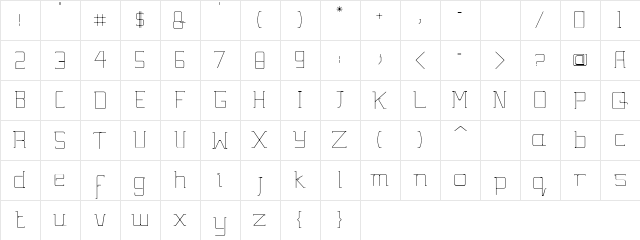
Gutsy Regular
| Foundry | Taha Ahmad Makhdoomi |
| Designer | Taha Ahmad Makhdoomi |
Design Context for Gutsy Typeface
Gutsy is a composed and adaptable typeface that performs quietly and consistently across a wide range of design contexts.